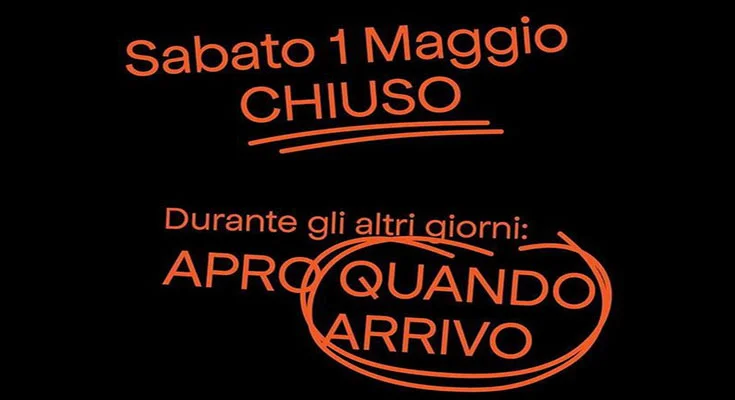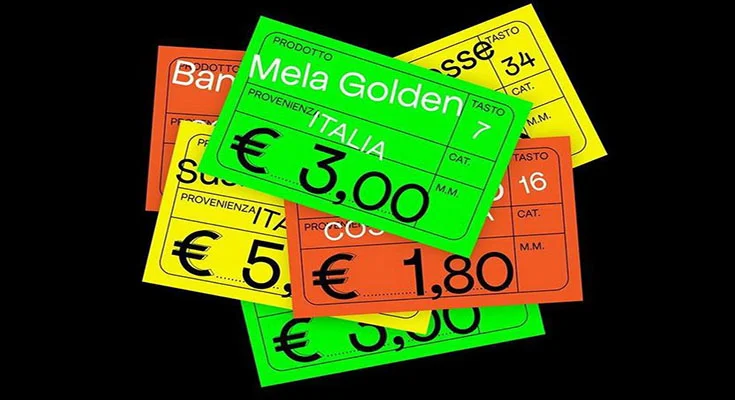
Apfel Grotezk Font is a round and airy sans serif typeface that brings a breath of fresh air to the world of typography. It was designed and shared by Collletttivo.
Basically, this font is inspired by neo–grotesque and geometric typefaces. You can use it for documents, book covers, paragraphs, posters, handing, web content, and more.
The rounded edges and generous spacing create a sense of openness and clarity, making it incredibly easy to read, even in smaller sizes.
Apfel Grotezk typeface comеs in thrее wеights: Rеgular, Brukt, and Fеtt. Moreover, this font contains  226 glyphs and supports 66 languages.
Its versatility, readability, and attractive design elements make it a great choice for designers who want to add excitement to their projects.
You can use it for multiple works. For example, you can surely create magazines, newspapers, bold headings, taglines, book covers, paragraphs, documents, printing on t-shirts, and watermarks on photos.
Whether you’re designing a logo, creating a poster, or optimizing your website, this font’s playful yet professional aesthetic adds uniqueness to your creations.
The font’s character set includes a variety of accents and symbols, making it suitable for multilingual projects. This versatility ensures it can cater to diverse design needs.